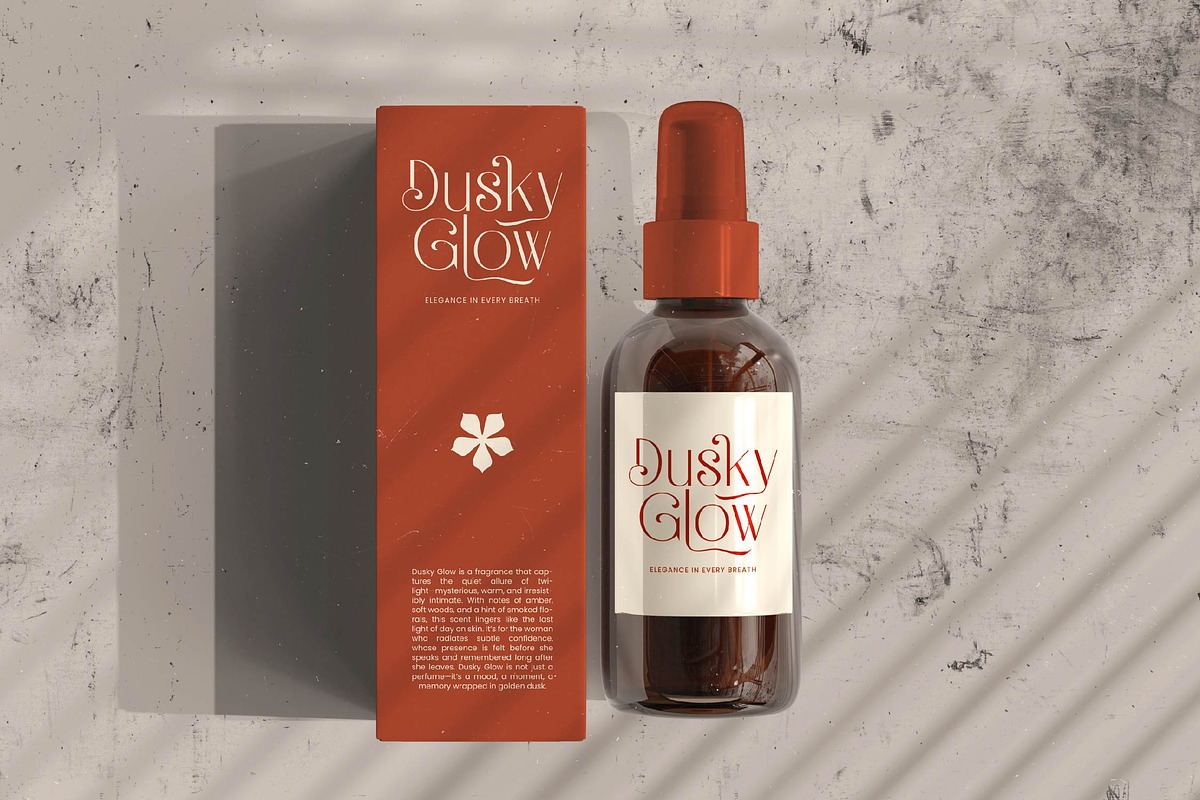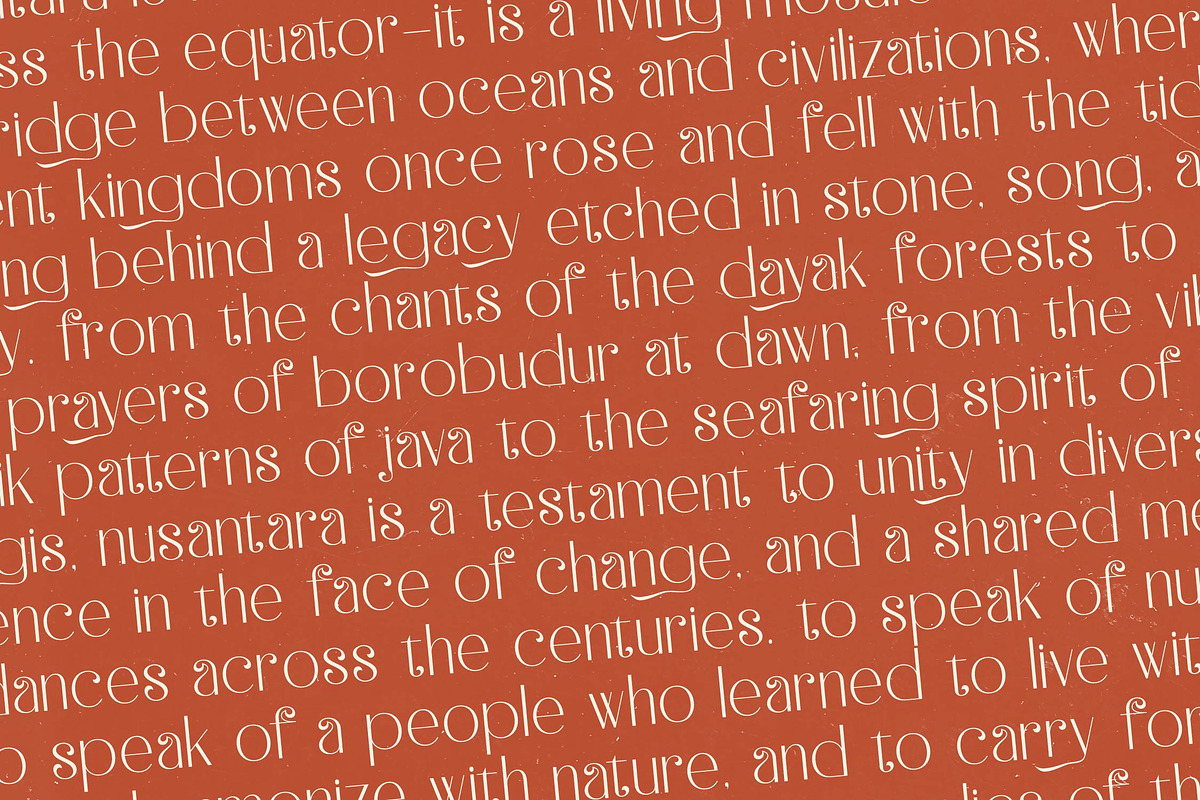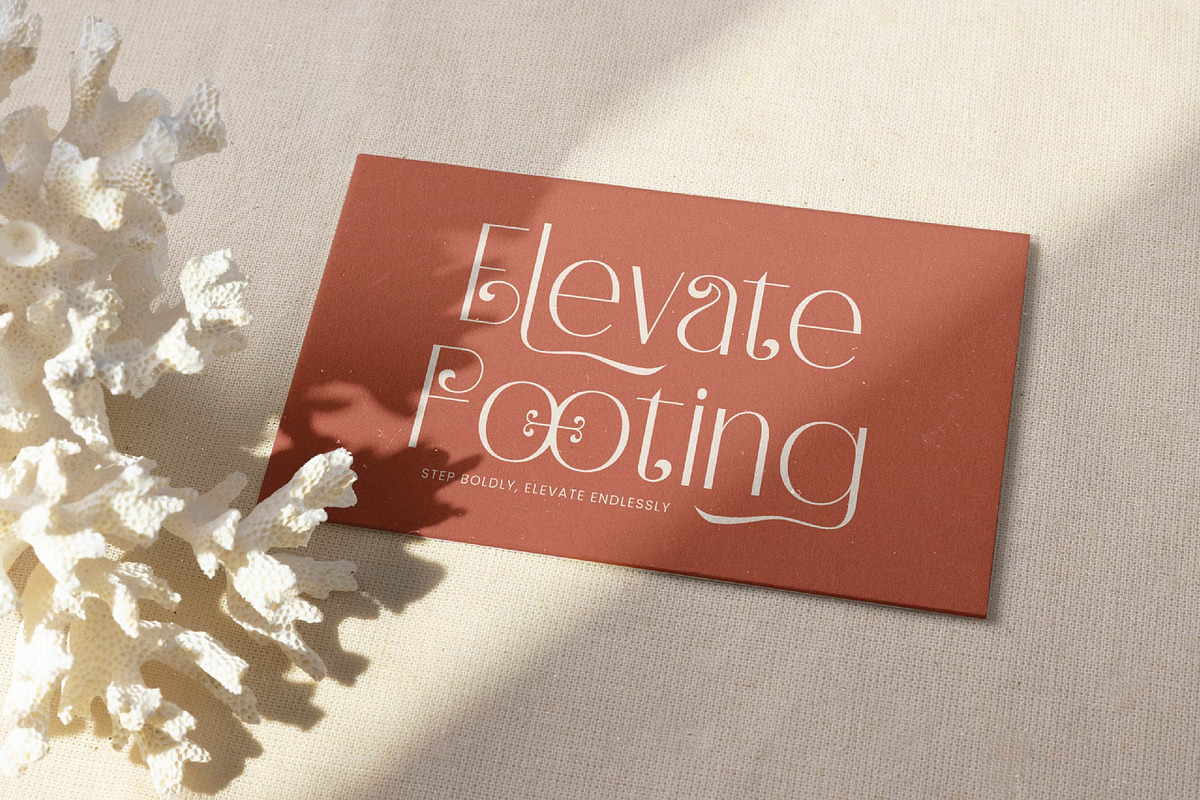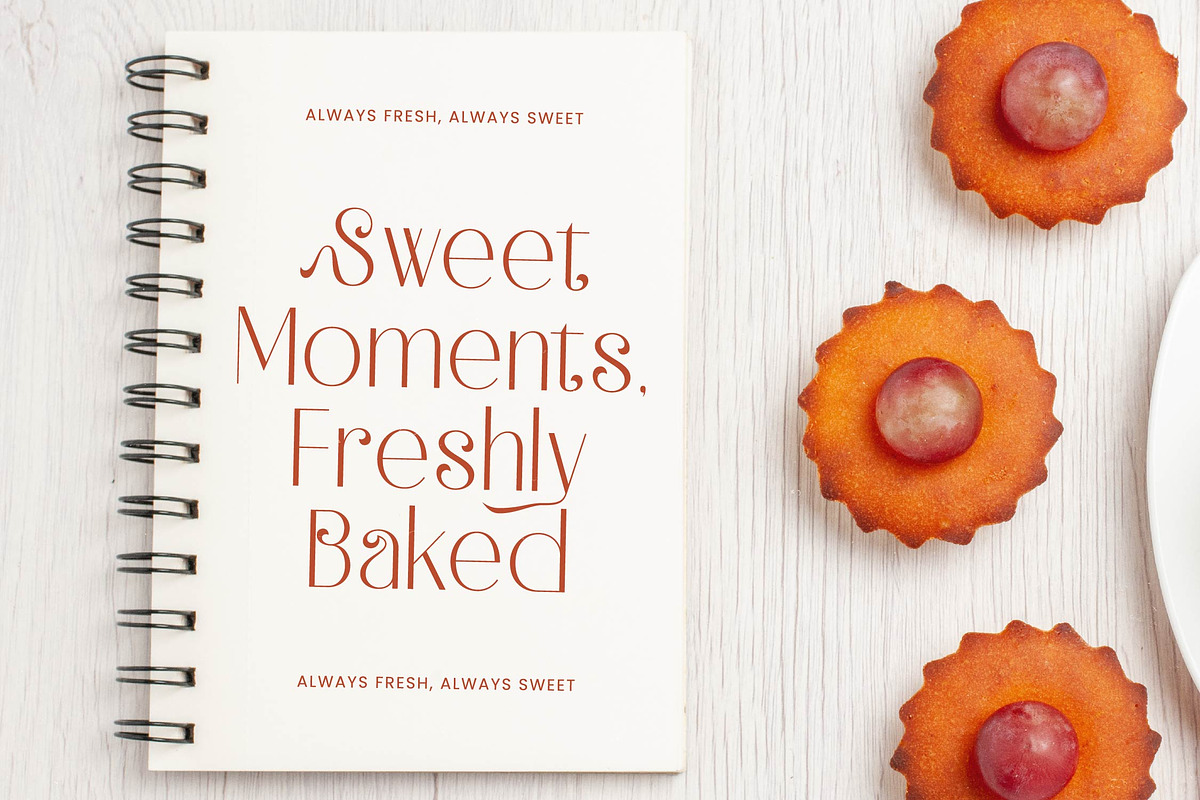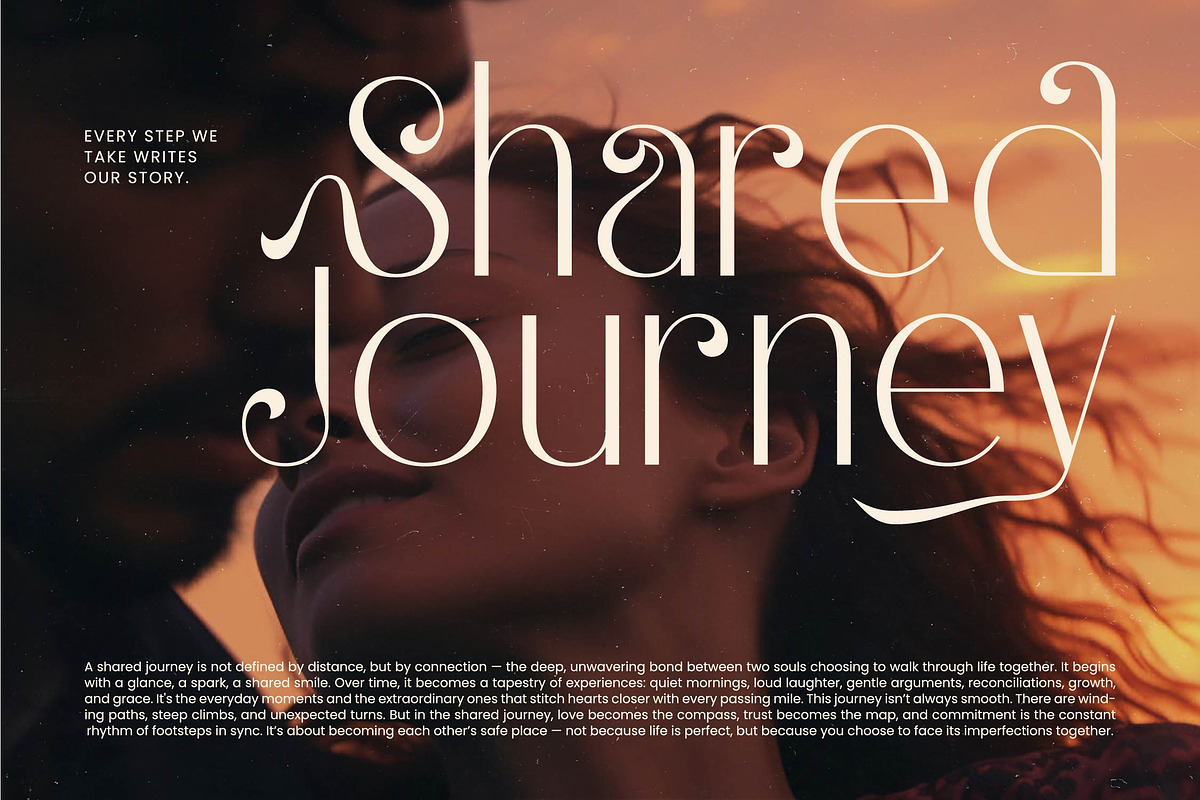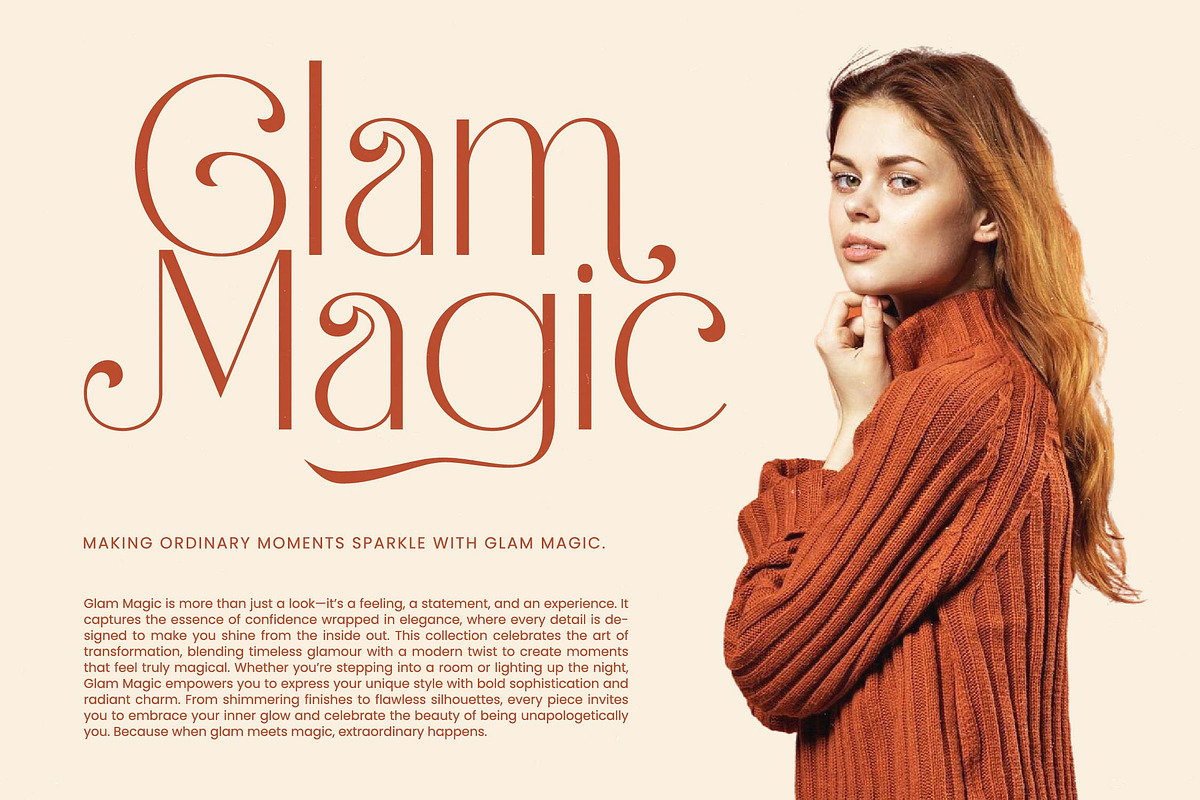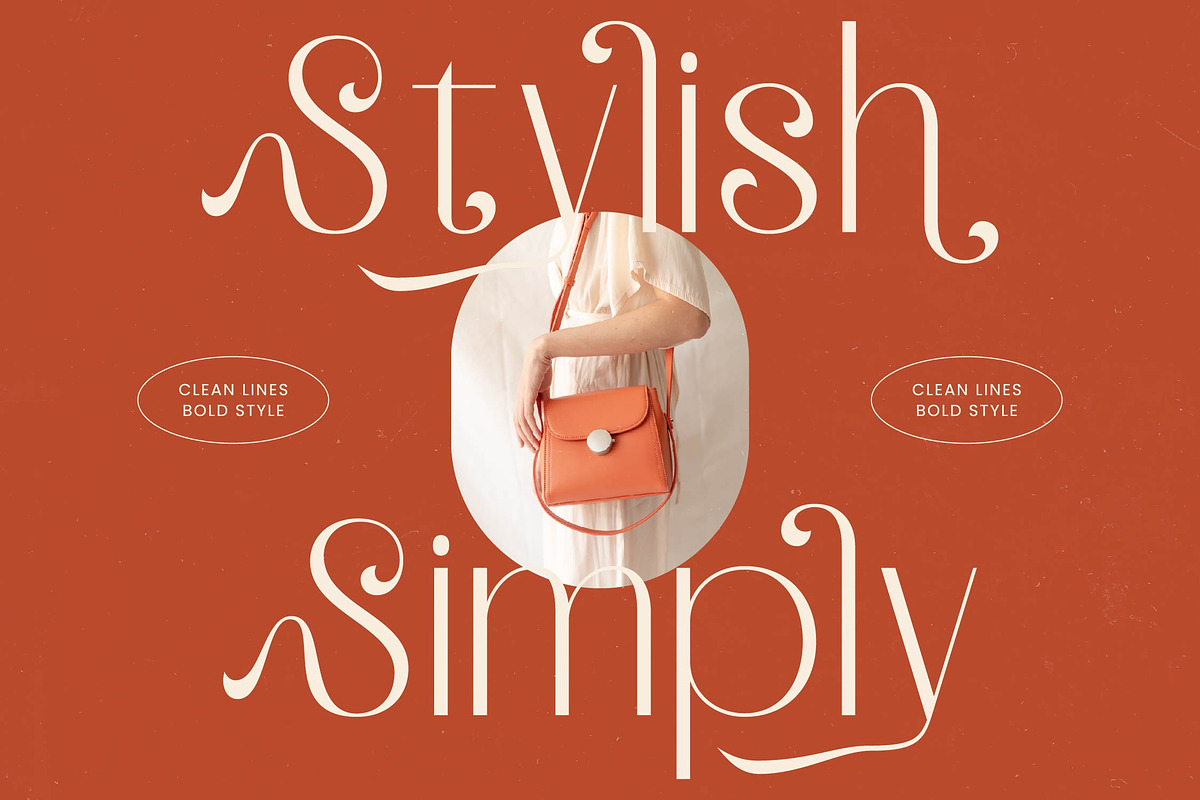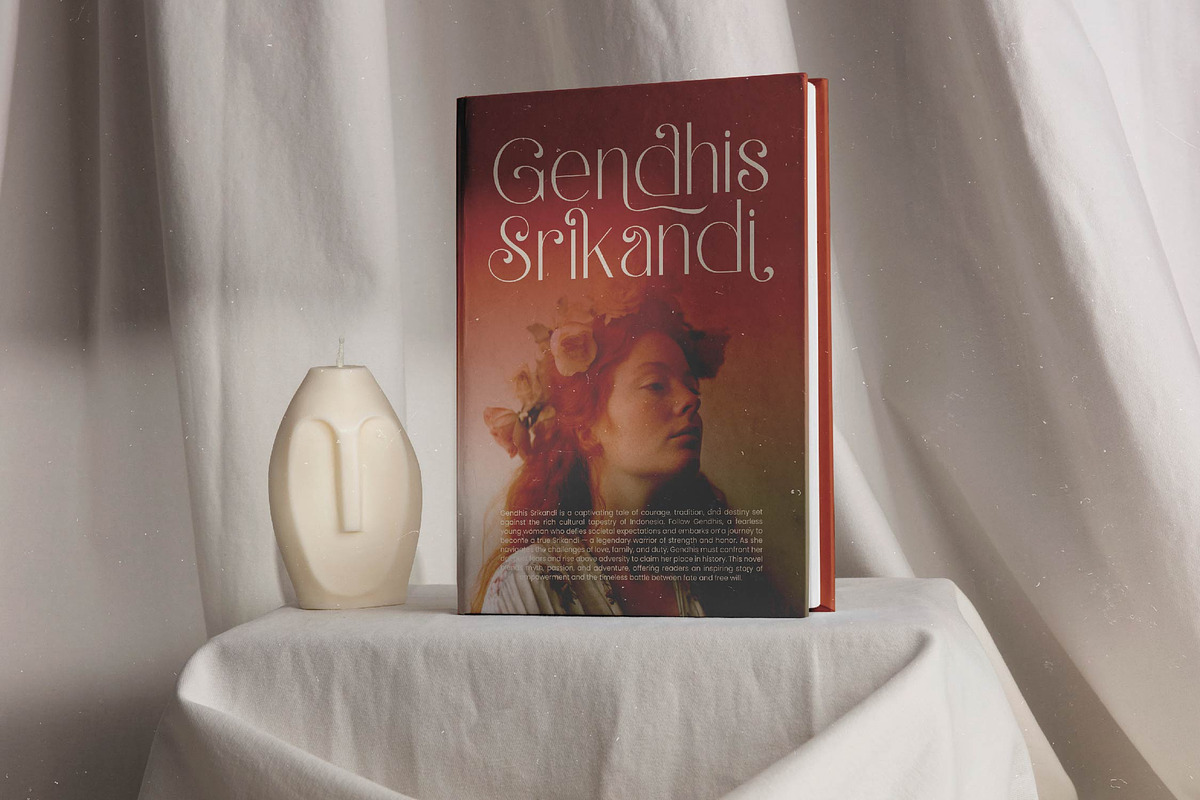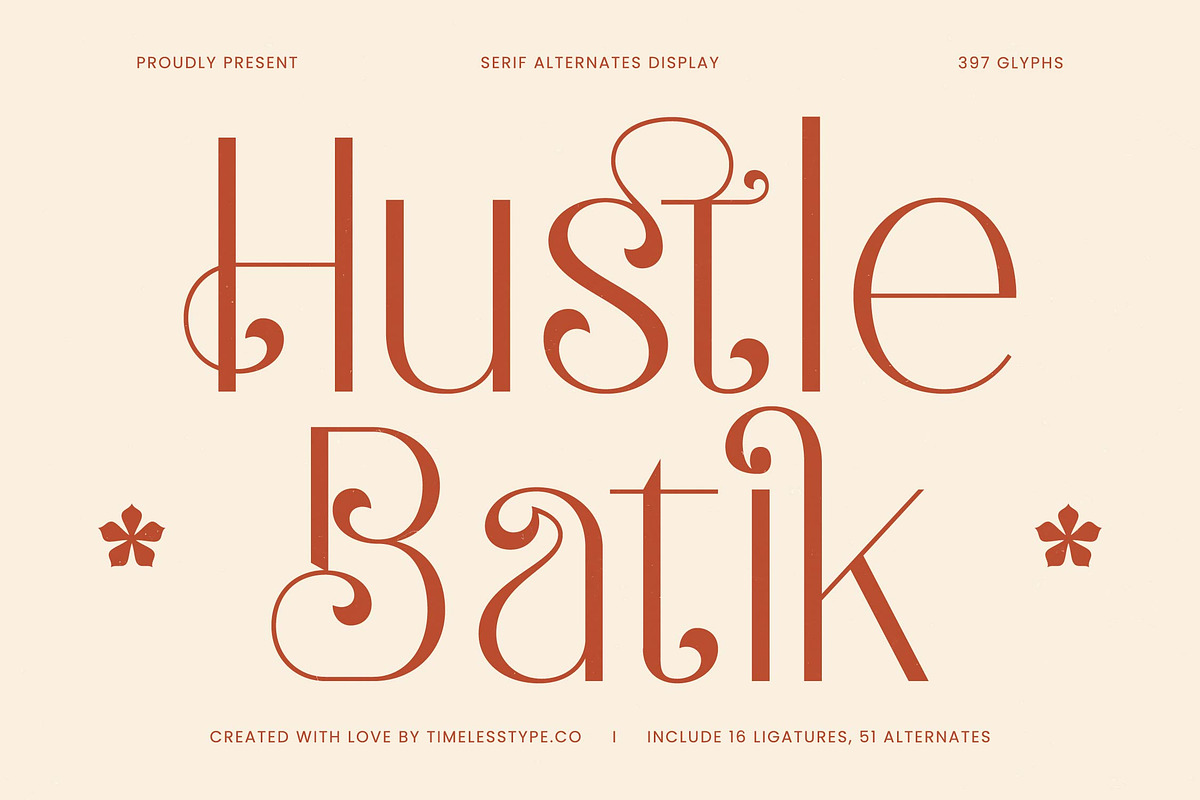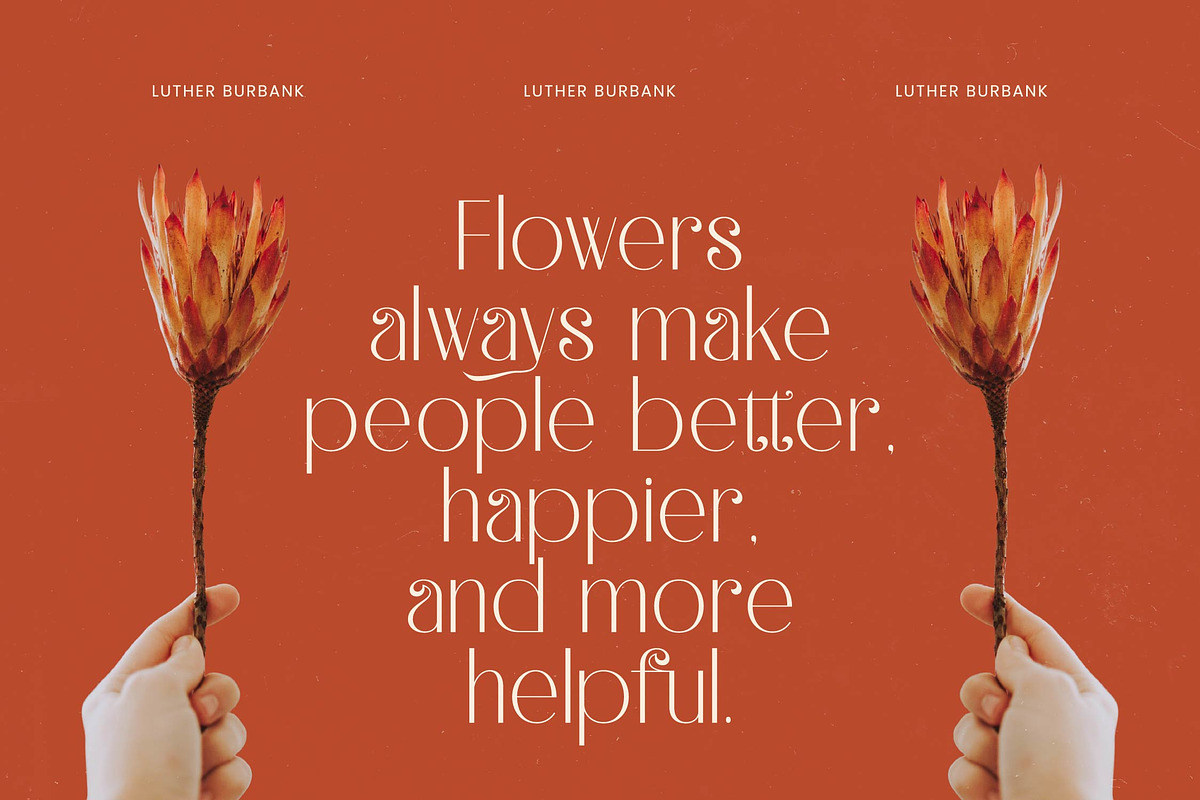
Hustle Batik Elegant Display Serif
Elevate your creative vision with Hustle Batik, a masterpiece of sophisticated design that breathes life into every word. This font is crafted for those who demand a blend of timeless grace and contemporary flair in their visual storytelling.
Drawing inspiration from the intricate patterns of traditional textile art and the bold lines of mid-century display typography, this typeface captures a unique cultural rhythm. It balances delicate, swirling flourishes with grounded, sturdy structures to create a visual melody that resonates across the page.
Defined by its modern serif display qualities and luxury typography appeal, this high-contrast serif commands attention in any setting. It is the ultimate editorial font for projects requiring a significant branding impact and a touch of artisanal craftsmanship that feels both heritage and fresh.
Perfectly aligned with the current modern serif trend, this typeface meets the demand for editorial display fonts that offer more than just legibility. Its character-driven typography allows designers to tap into the "new vintage" aesthetic currently dominating high-end fashion and lifestyle markets.
Whether you are working on high-end logo design, holistic branding identities, or premium editorial spreads, this font delivers unmatched versatility. It excels in upscale packaging, romantic wedding stationery, and avant-garde fashion lookbooks where personality is paramount.
This comprehensive package includes over 397 glyphs, featuring a rich library of ligatures and alternates that unlock endless customization. With decorative swashes and full multilingual support for international characters, your global projects will remain consistently stunning and professional.
- Ligature 16 Alternate 51